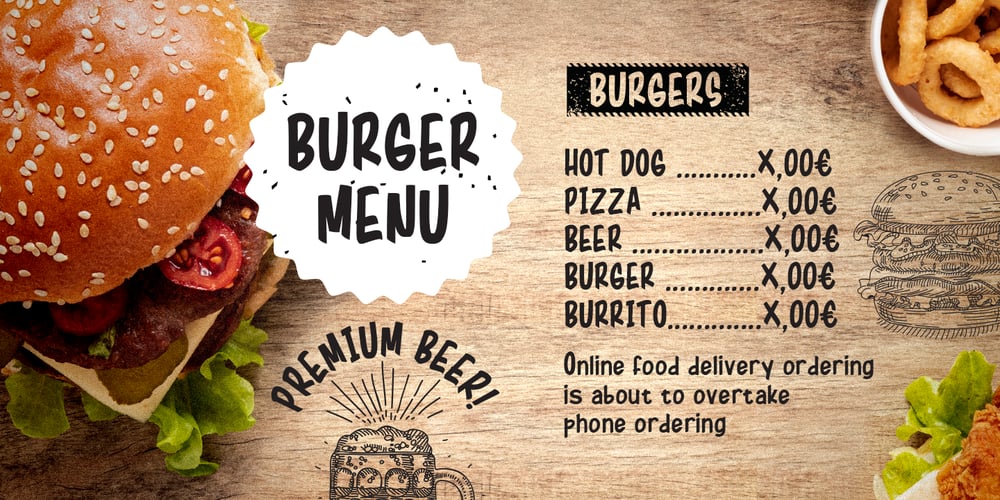
Oily Brush
Oily Brush font
Oily Brush Font Family was designed by Tetiana Pavlova and published by Pseudo. Oily Brush contains 1 styles and family package options. Oily Brush is the mix of funny, communicative, comic and sketchy directions. The font ist perfect in use with the food, doodle or the cartoon themes and has the small nuance from the oil-painting. This script designed to be informal, casual and easy in the perception and includes confidently positive emotions.